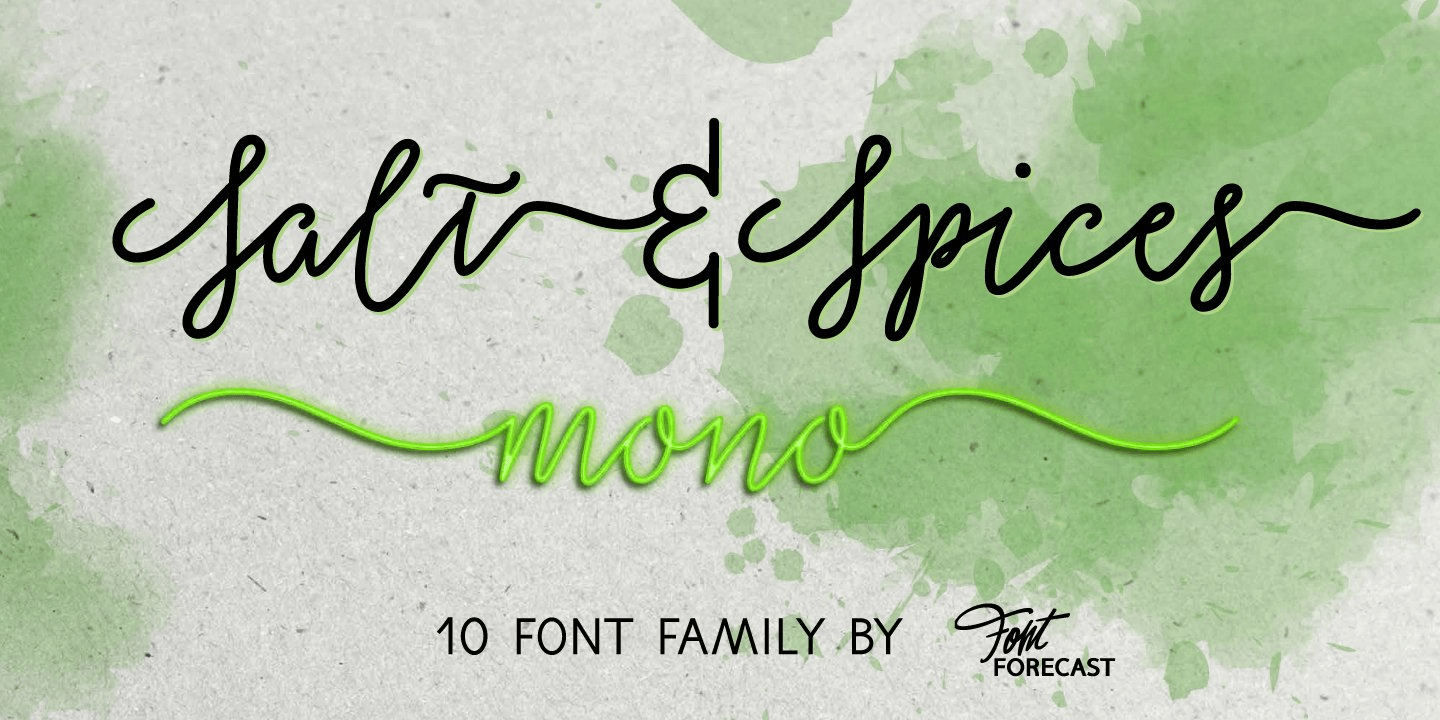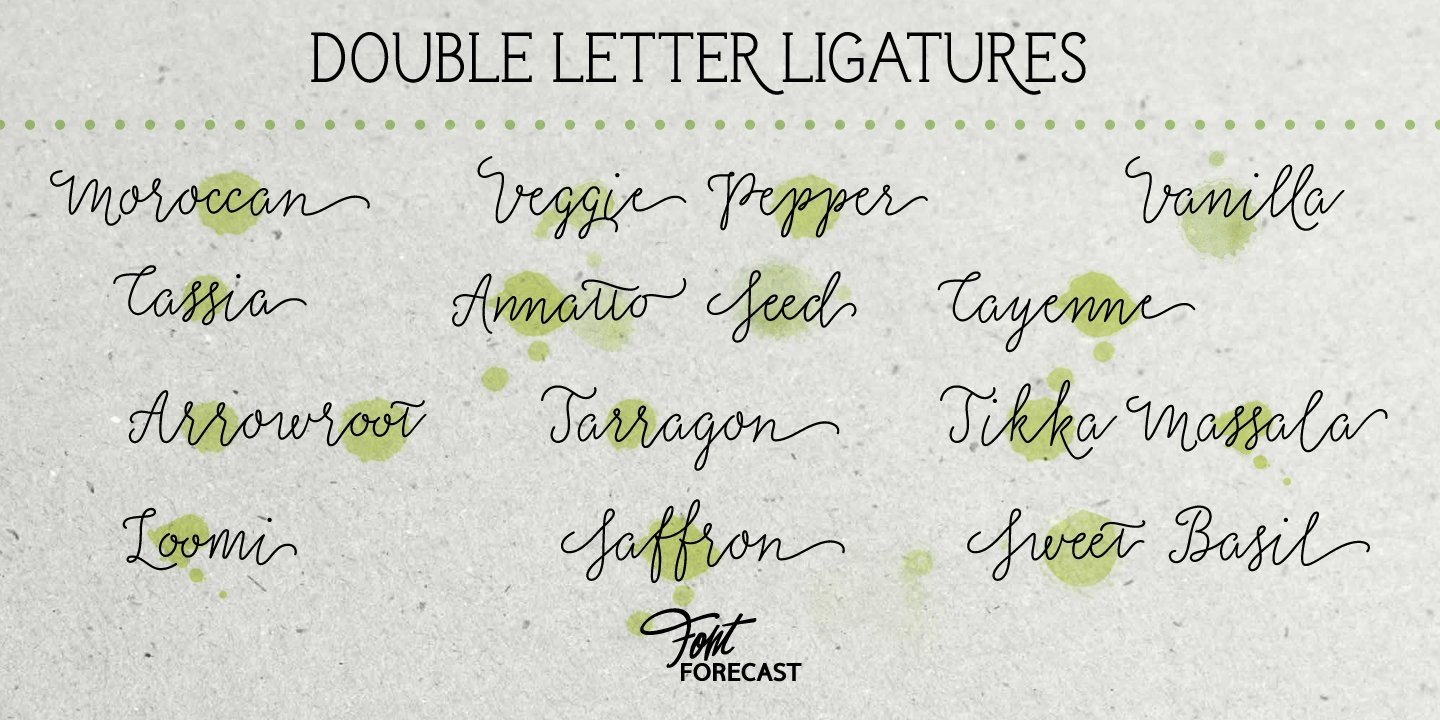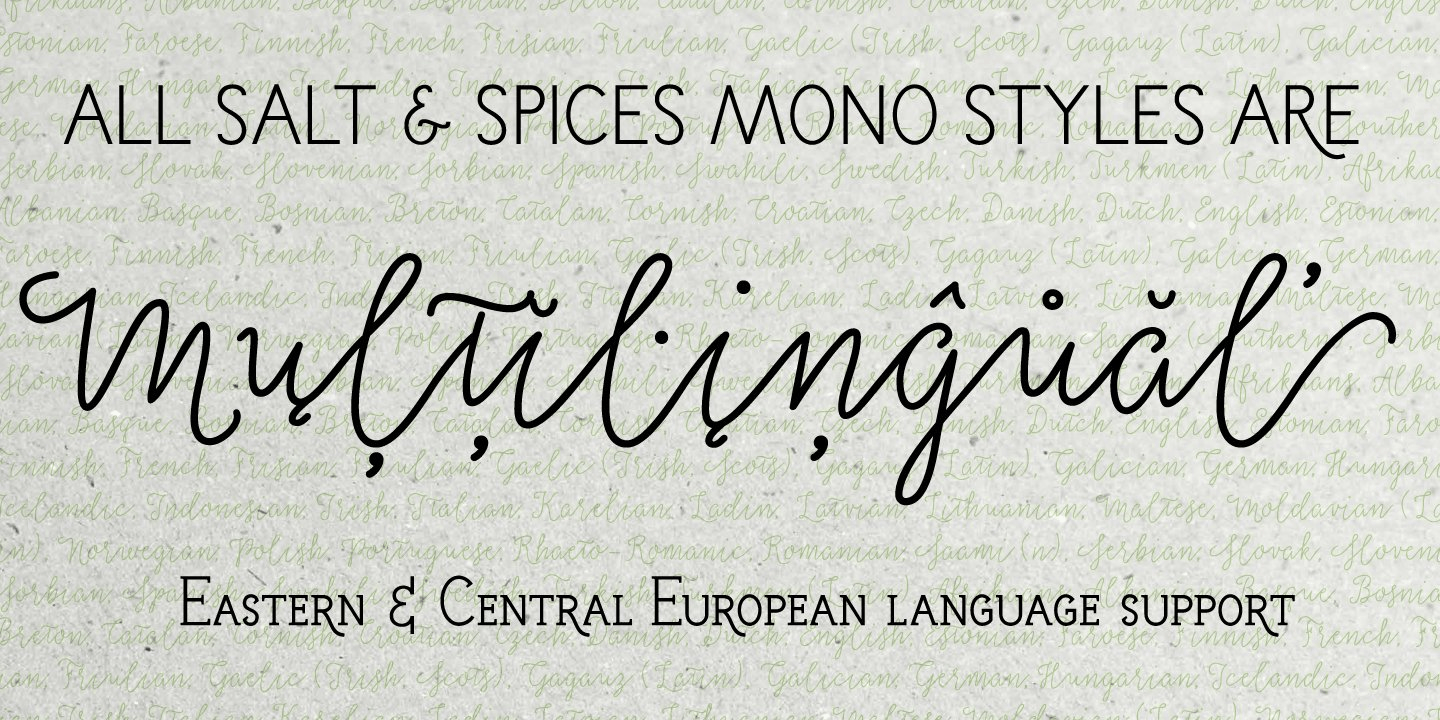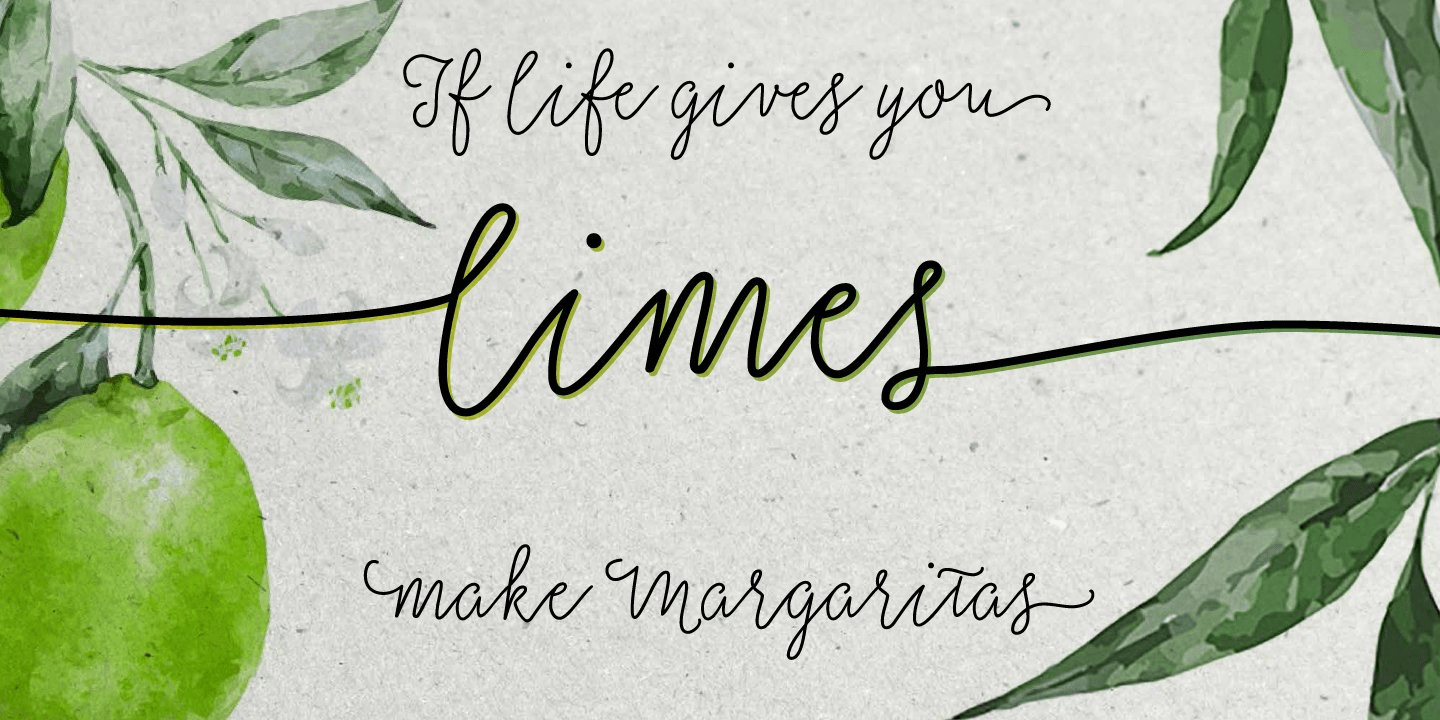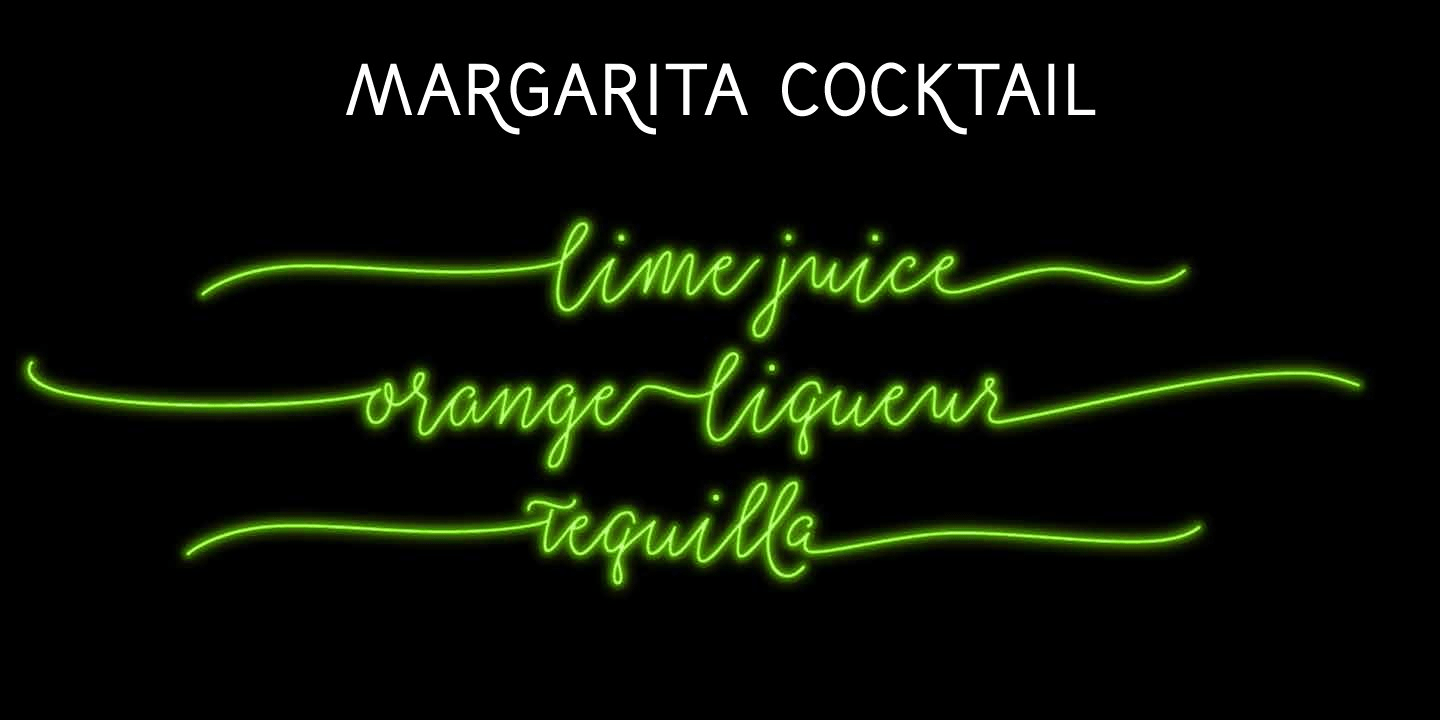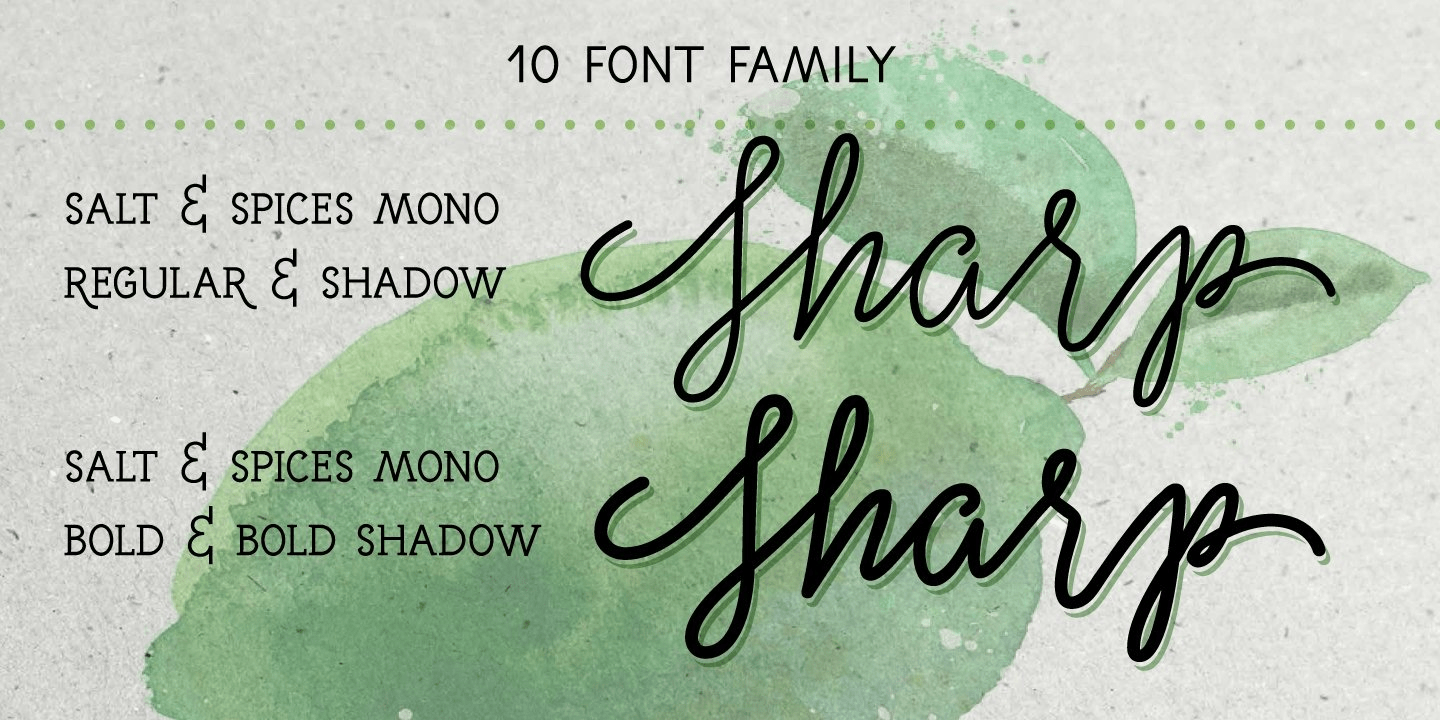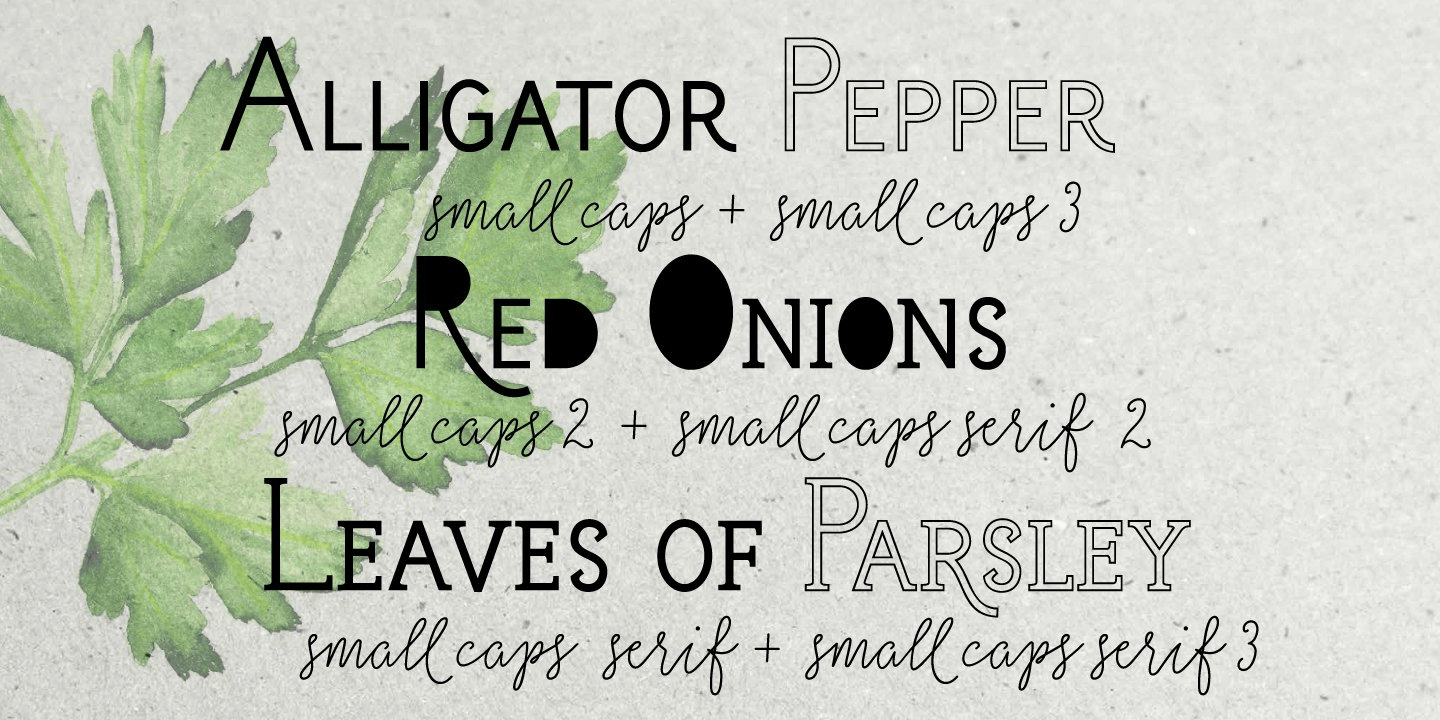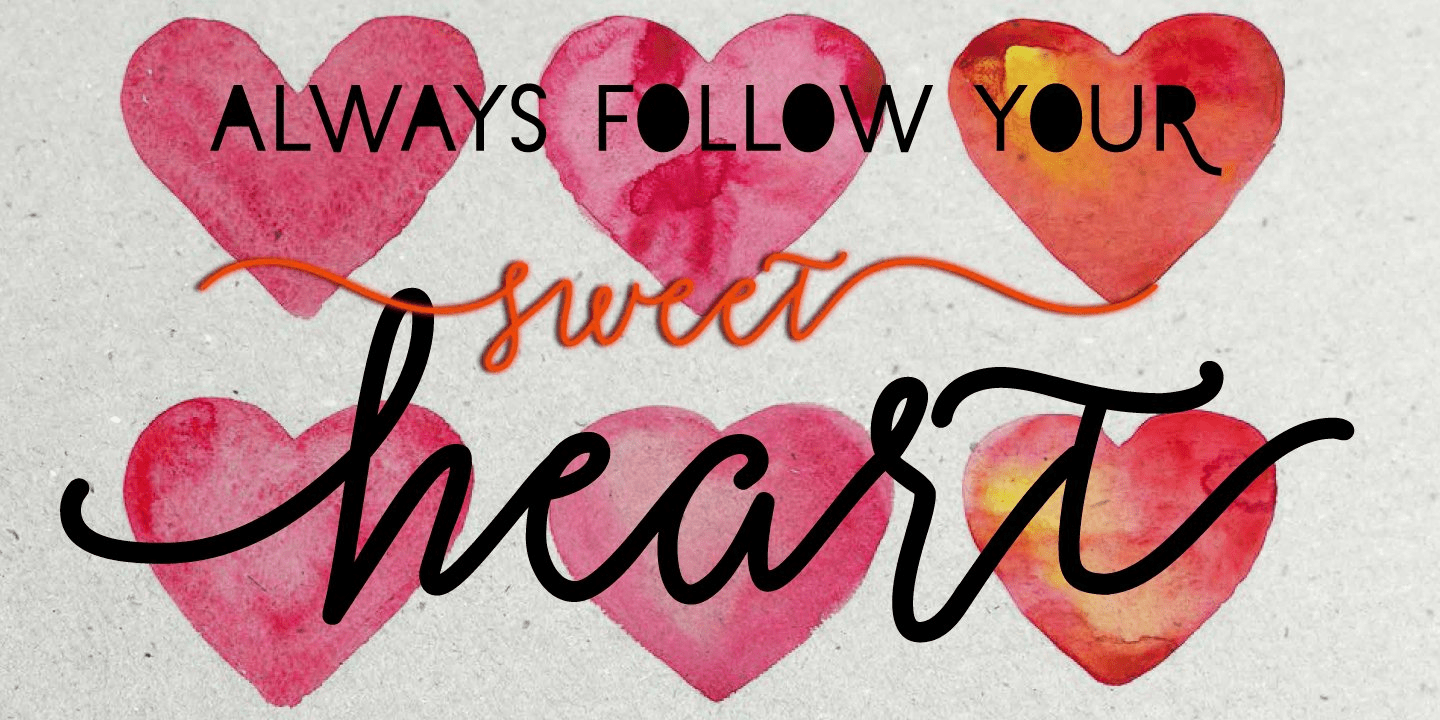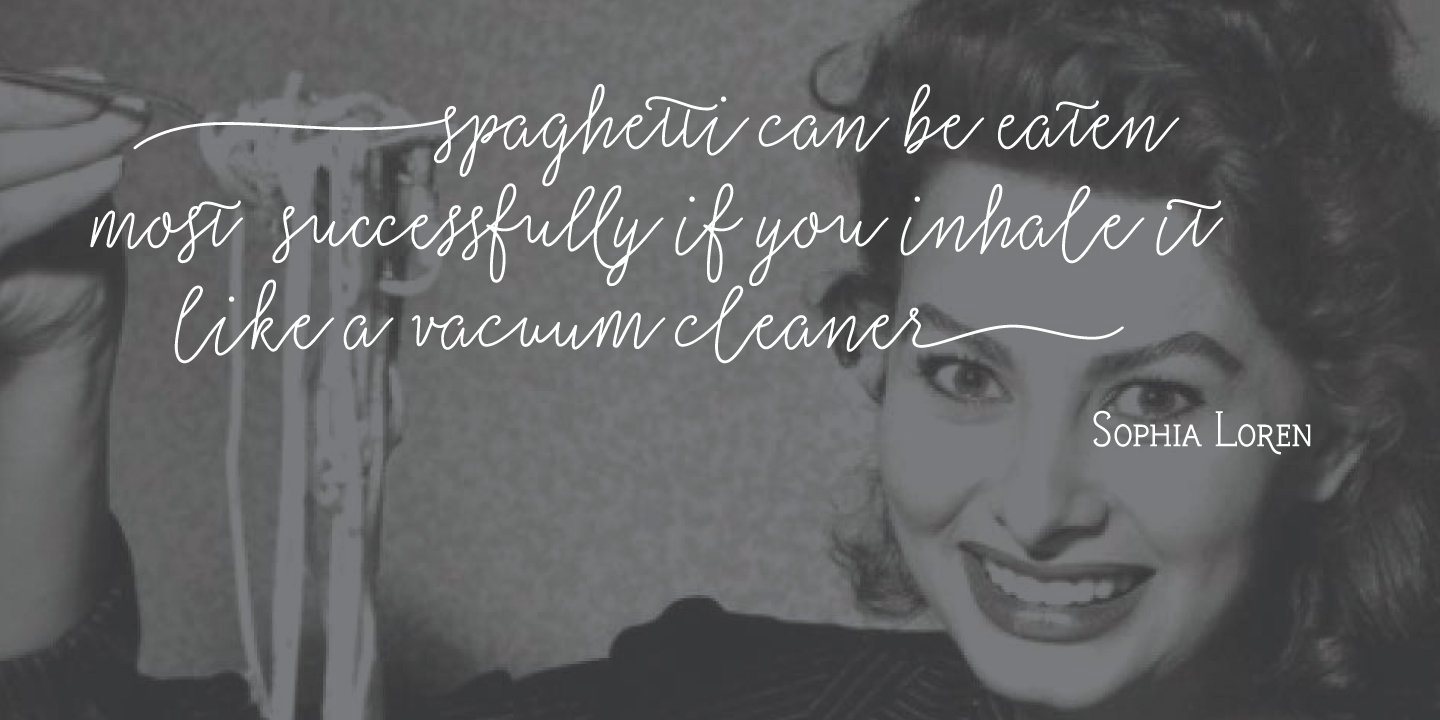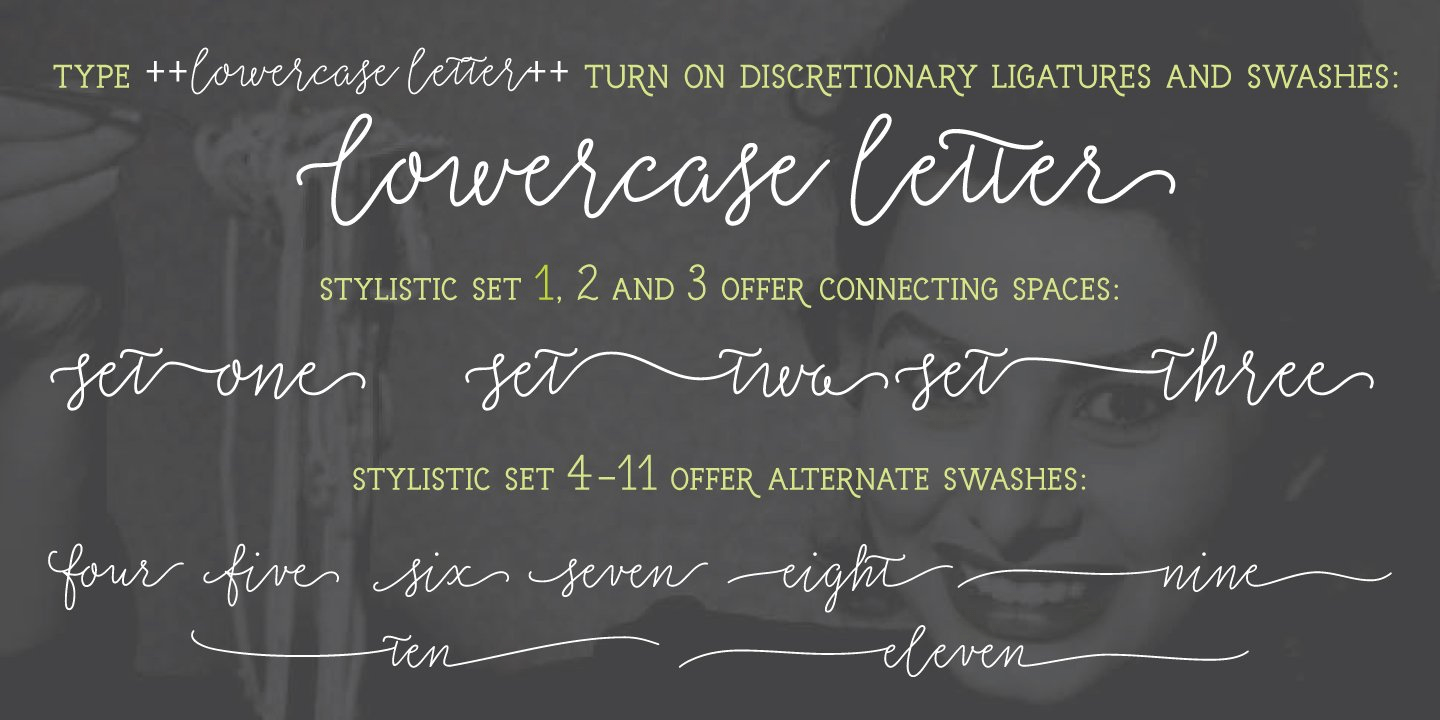
Salt And Spices Mono
Salt & Spices Mono is the mono lined version of Salt & Spices Pro. Where Salt & Spices Pro has the rough contours and high contrast that is typical for dip pen calligraphy, Salt & Spices Mono has clean crisp smooth letterforms that result in a totally different look and feel. Great for creating neon effects. Fun features like connecting spaces and long swashes for customization of words and phrases are preserved in Salt & Spices Mono.
This versatile 10 font family, consisting of 4 casual script styles: Regular, Bold, Shadow and Bold Shadow offers great flexibility. For instance: the appearance of initial and terminal letters can be customized using the glyph pallet. Contextual alternates, Swashes and Stylistic sets give you the ability to replace spaces by 3 alternate connecting spaces or add swashes to initial/terminal letters. Double letter ligatures help sustain the natural flow of handwriting.
In addition to the 4 script styles 3 SmallCaps Sans styles and 3 SmallCaps Serif styles were added, all mono lined. They add great variation to your designs and supplement and support each other perfectly.